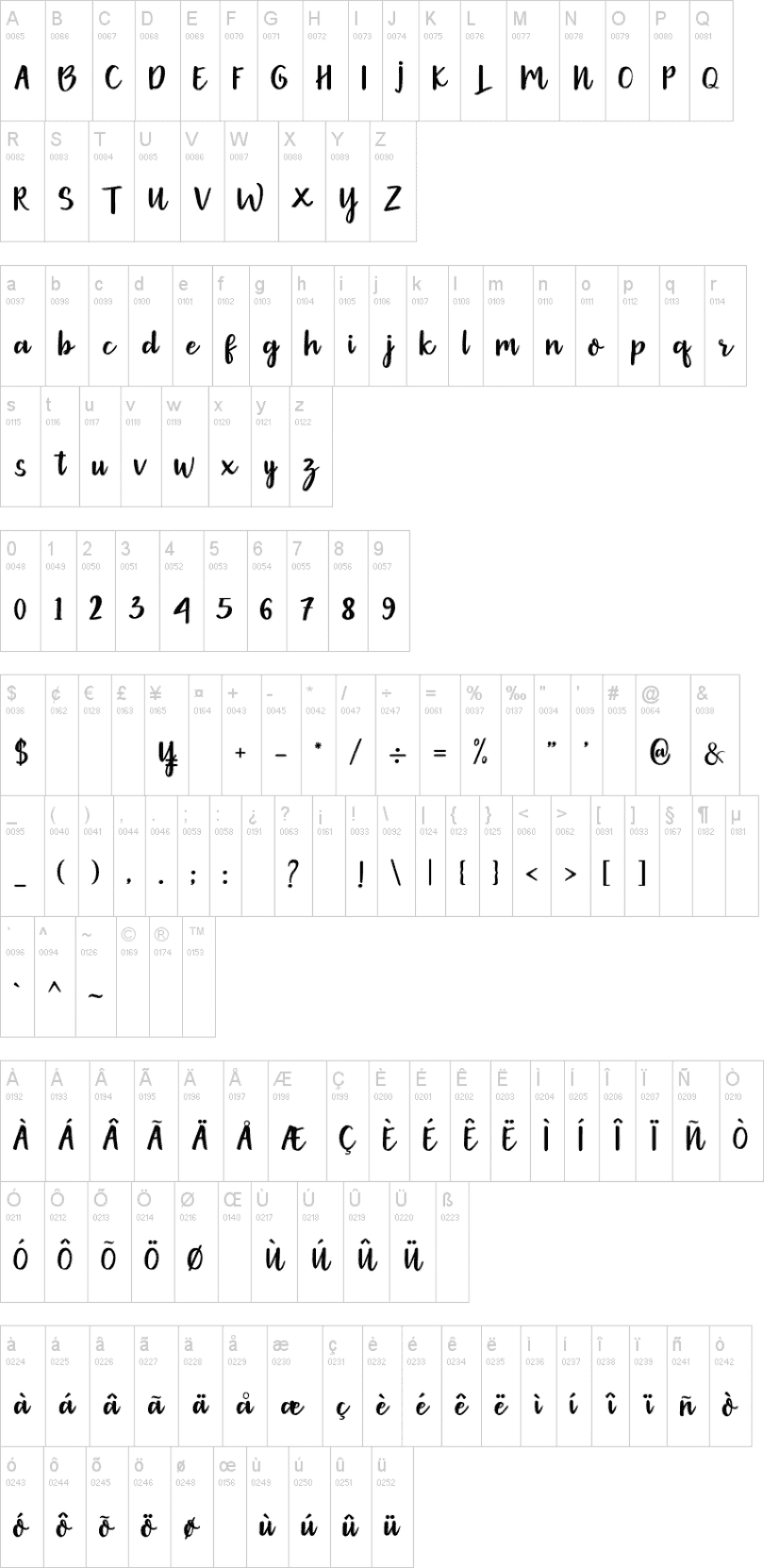
Gethania Script has been designed with 300+ glyphs in it. The other characters included several Open Type features including Swash, Stylistic Sets, Stylistic Alternates, Contextual Alternates. Open Type features can be manipulated by Open Type intelligent programs like Adobe Illustrator, Adobe InDesign, Adobe Photoshop Corel Draw X version, Microsoft Word and many other applications.